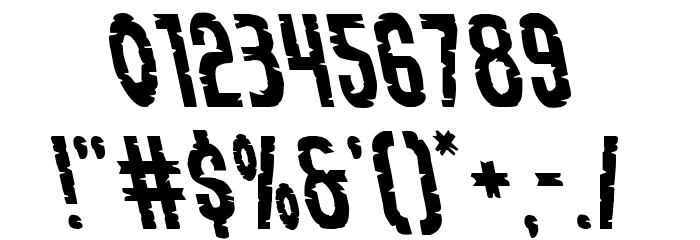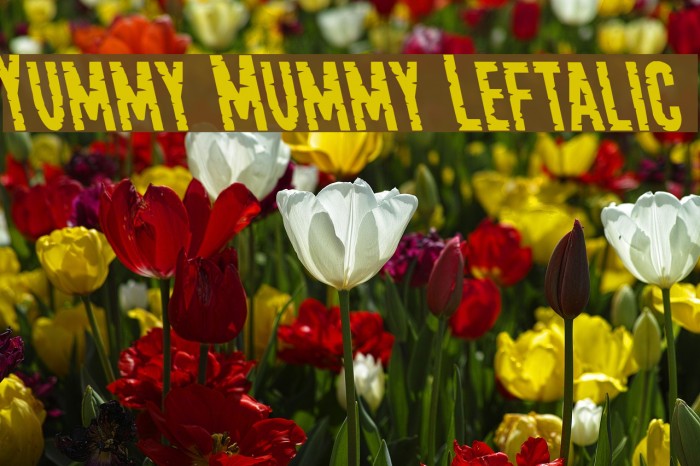
Yummy Mummy Leftalic Font
This font features a bold and dynamic style with a distressed, grunge-like texture that gives it a rugged and edgy appearance. The characters are slightly slanted, adding a sense of movement and energy. The uppercase and lowercase letters maintain a consistent width, while the numbers and special characters follow the same textured theme. The overall design is eye-catching and suitable for projects that require a strong visual impact.
Bold, distressed font with a dynamic, slanted style.
- Proposed Projects: Ideal for posters, album covers, and branding projects that require a bold, edgy look.